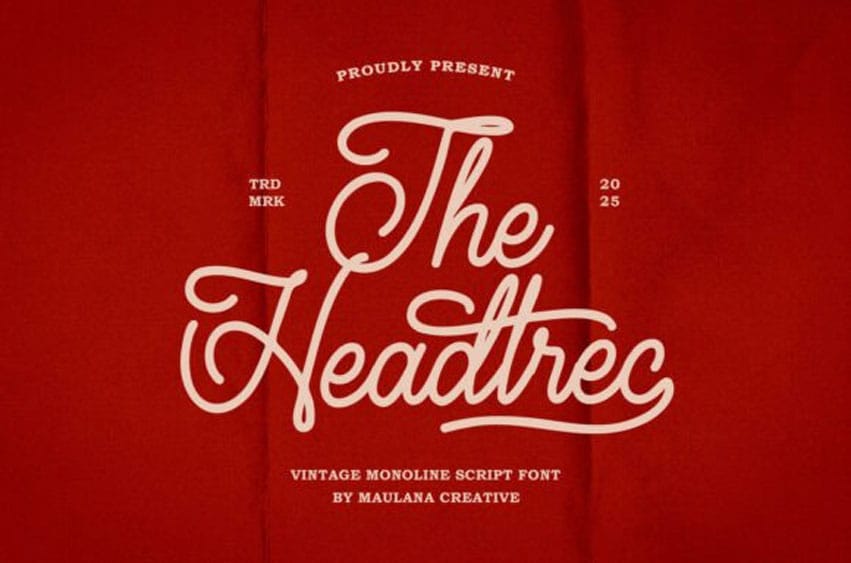
Headtrec Font is a vintage monoline script font that blends classic charm with bold personality.
Featuring elegant curves and retro flair, this typeface is perfect for logos, signage, apparel, barbershops, coffee brands, and anything with a nostalgic soul and modern punch.